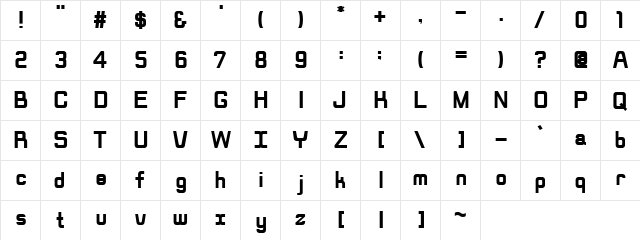
Rippen Bold
Design Context for Rippen Typeface
Rippen offers clean, dependable letterforms without strong stylistic allegiance, making it a practical choice for designers who need flexibility. Its bold stroke weight gives it real presence on the page.
Pro Tip: Use Rippen in both headline and body roles to test its range before committing to a single application.